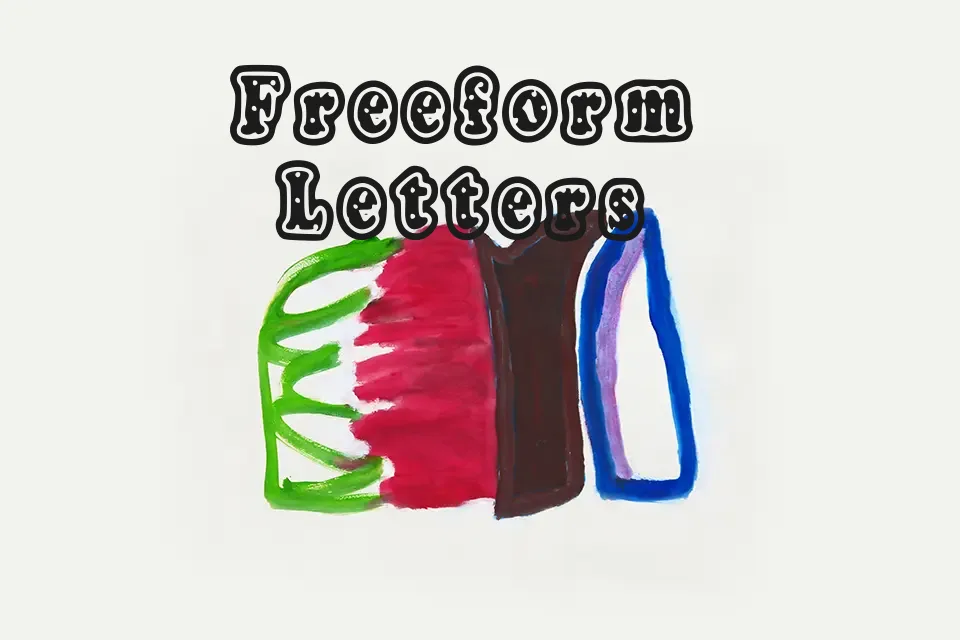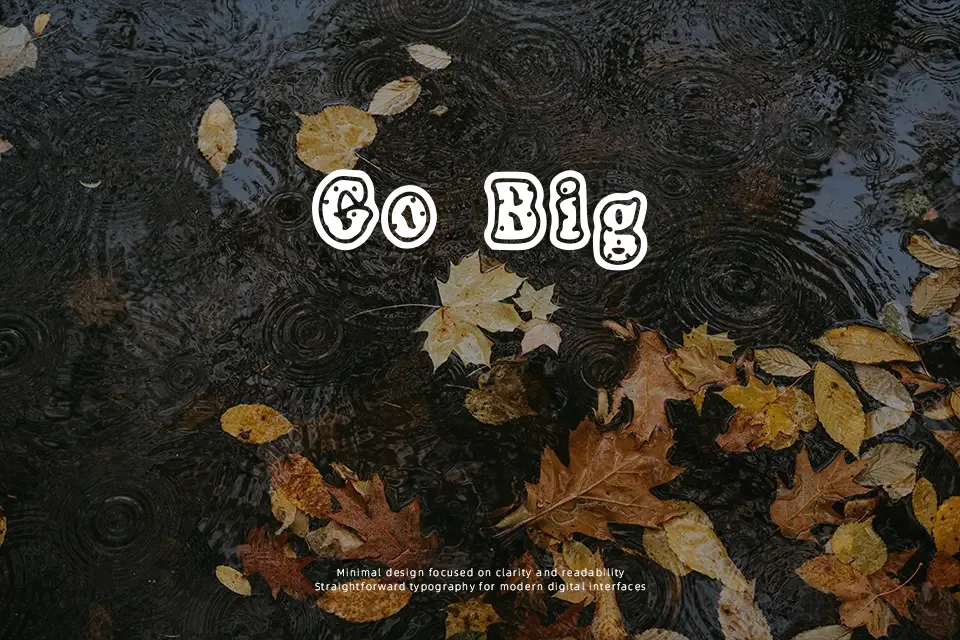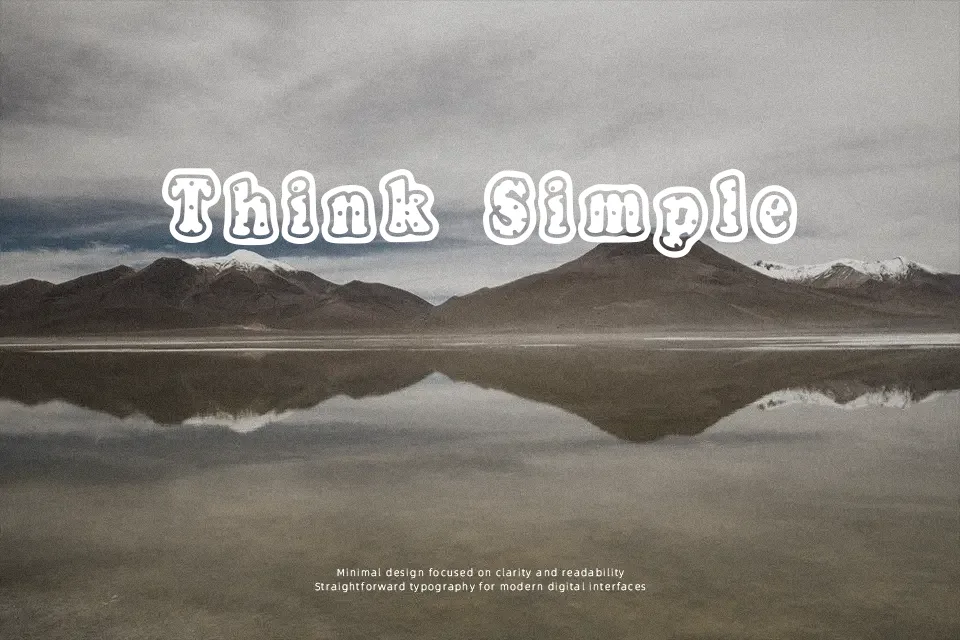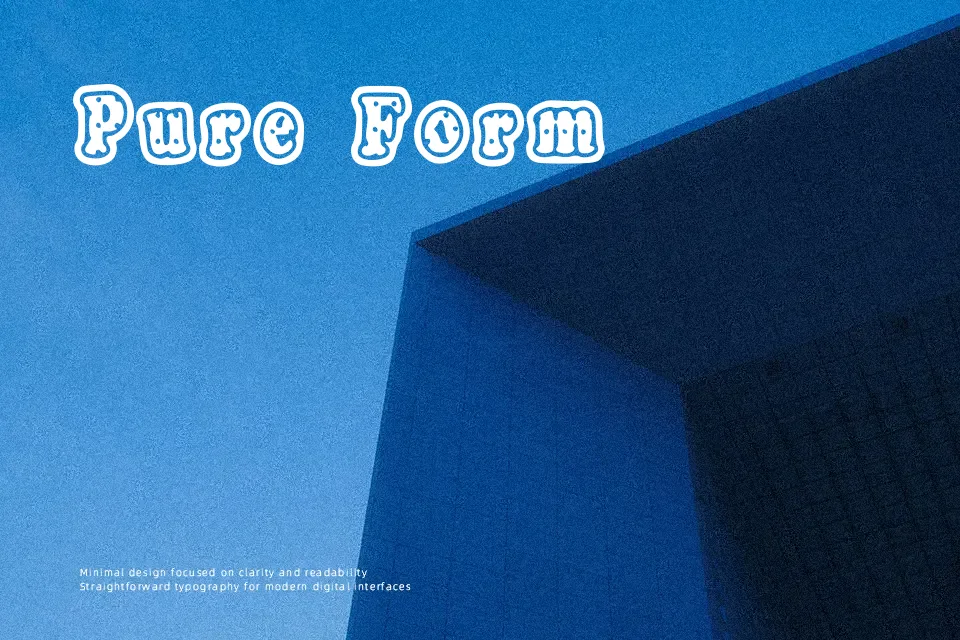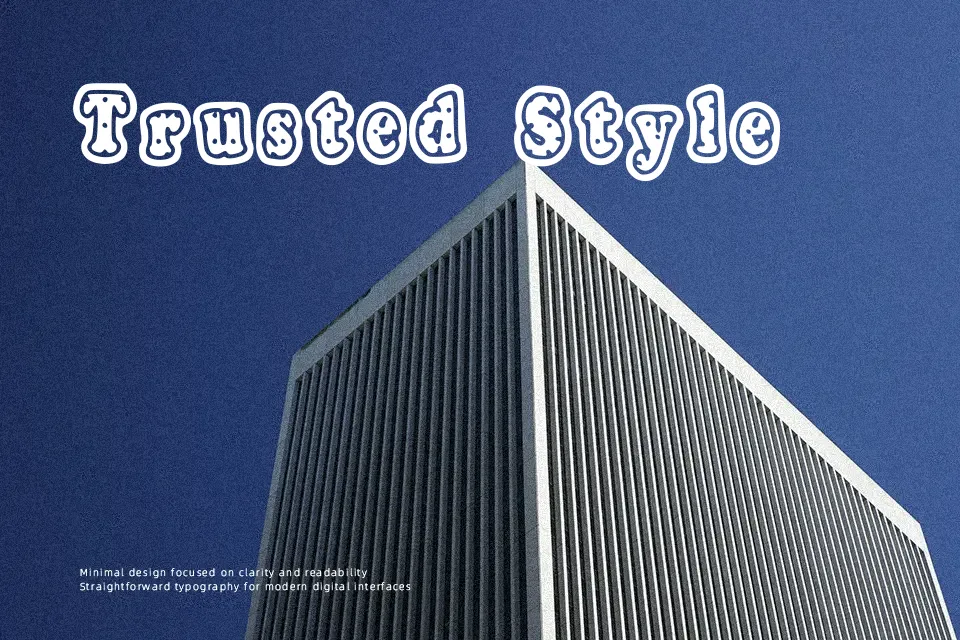
Polka Letter Stamp Font
Designed by MariJo Salas
Polka Letter Stamp Font introduces a heavily textured, decorative structure defined by chunky strokes and interior dotted patterns. The letterforms display a rustic, hand-stamped aesthetic with slightly irregular edges that emphasize its crafty origins. Proportions are generally wide and bold, ensuring the patterned details remain visible when applied to large posters, children’s apparel, or creative packaging. The spacing helps maintain clarity in larger headlines, allowing the rustic textures to breathe. However, these same decorative details become less effective at smaller sizes, where the dots can blur into the heavy strokes. Dense forms reduce comfort during extended reading, making this typeface strictly suitable for short display purposes rather than continuous paragraph text.
Best For: children’s product packaging, craft shop branding, scrapbooking page titles, handmade festival posters
Not Ideal For: long paragraph text, small interface labels, corporate reports
Perfect for branding, kids, and packaging, with a creative and decorative style.